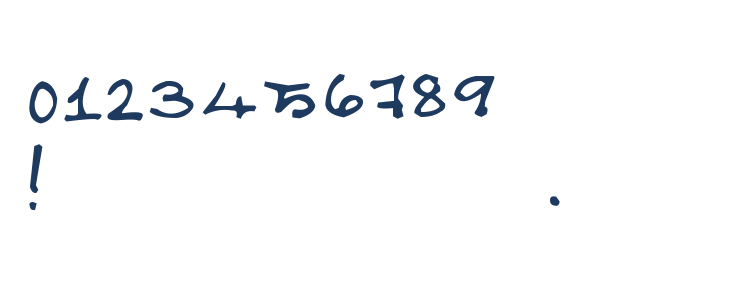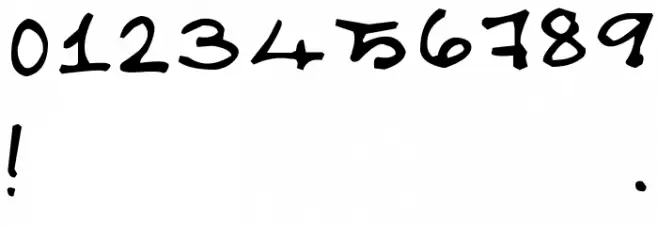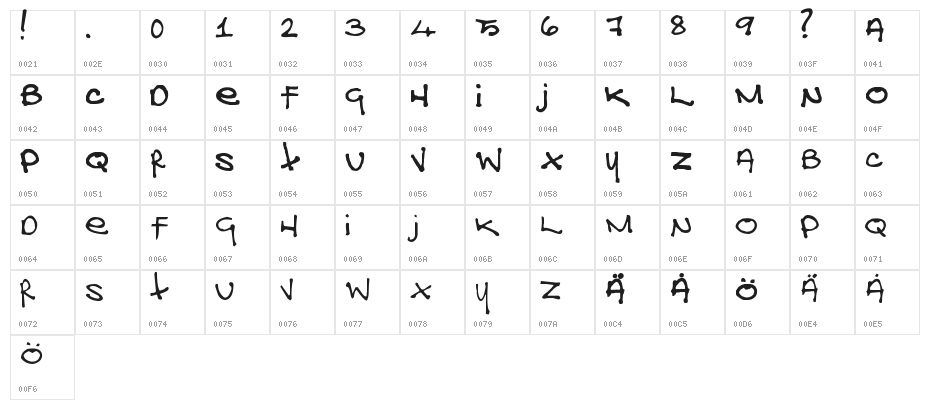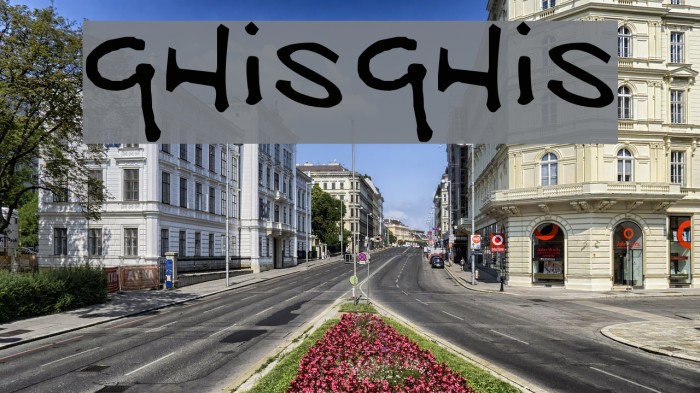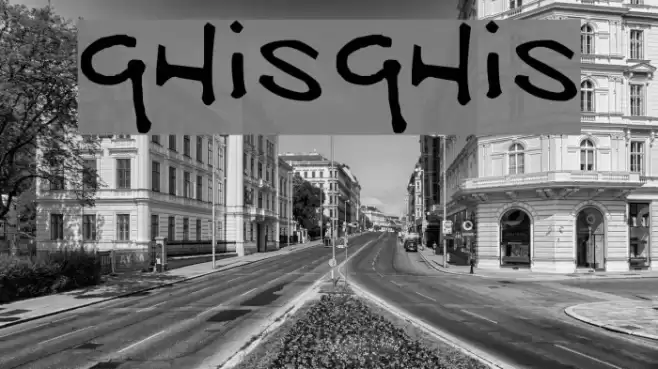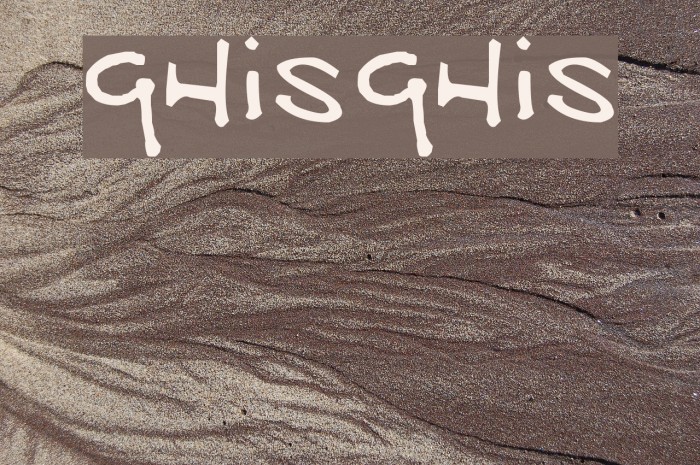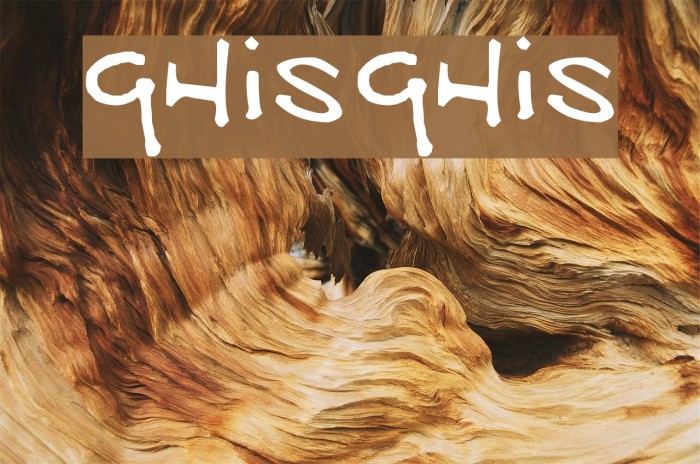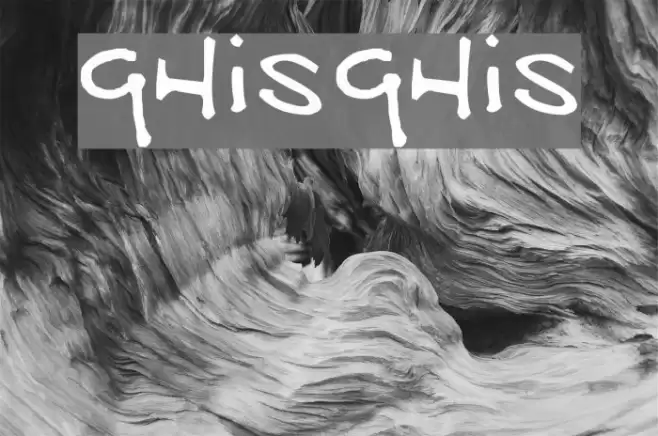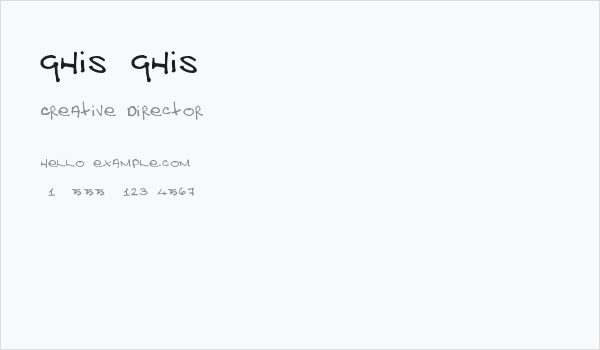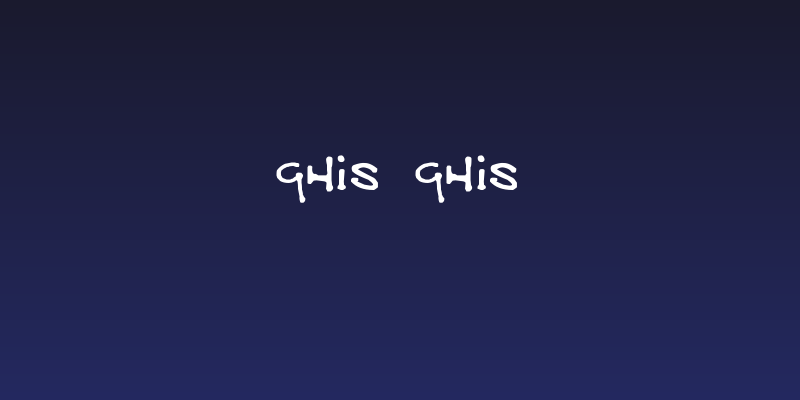
Ghis Ghis Font
Ghis Ghis Description
This font features a playful and casual handwritten style, characterized by its irregular strokes and organic flow. The letters have a slightly uneven baseline, adding to the informal and approachable feel. The strokes are moderately thick, providing good readability while maintaining a relaxed aesthetic. The font includes both uppercase and lowercase letters, numbers, and a selection of special characters. Its unique charm makes it suitable for creative projects that require a personal touch.
| Use Case | Logos, Invitations, Creative projects |
| Proposed Projects | Ideal for greeting cards, invitations, children's books, and creative branding. |